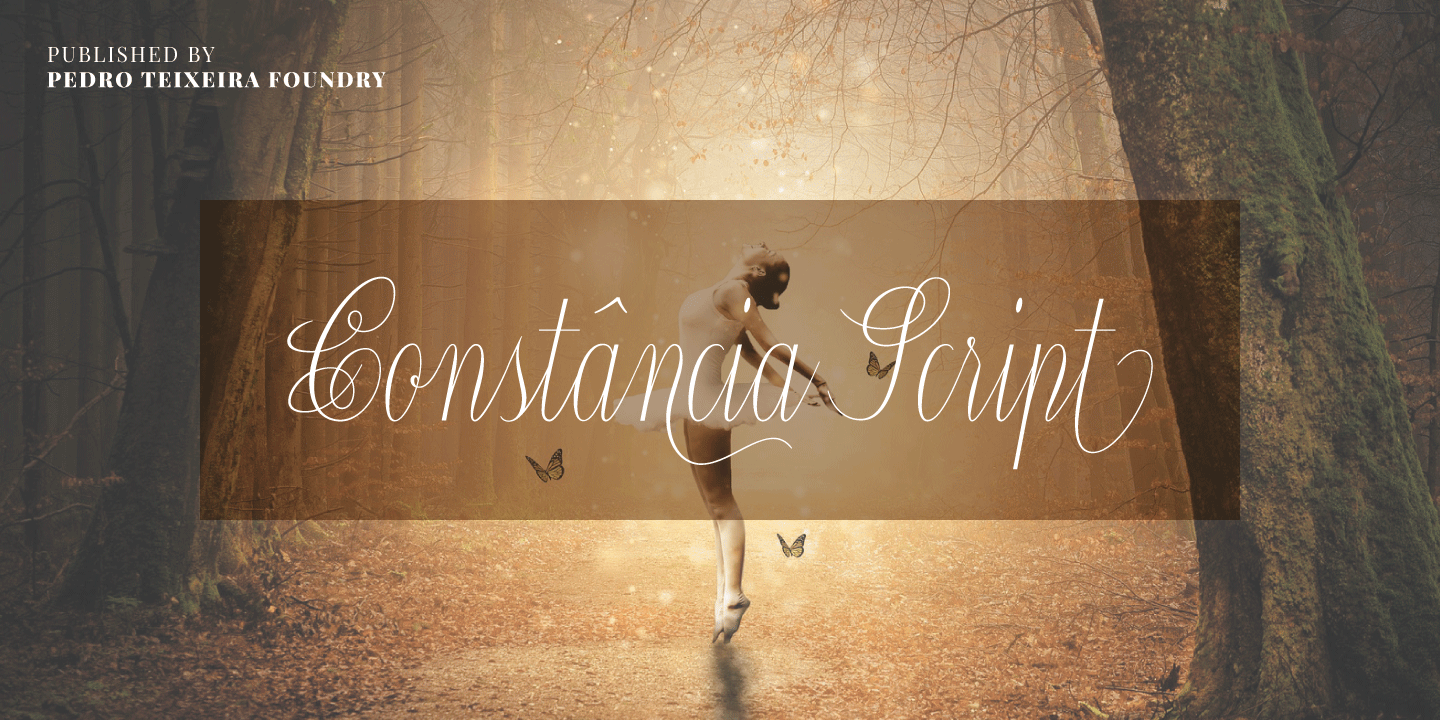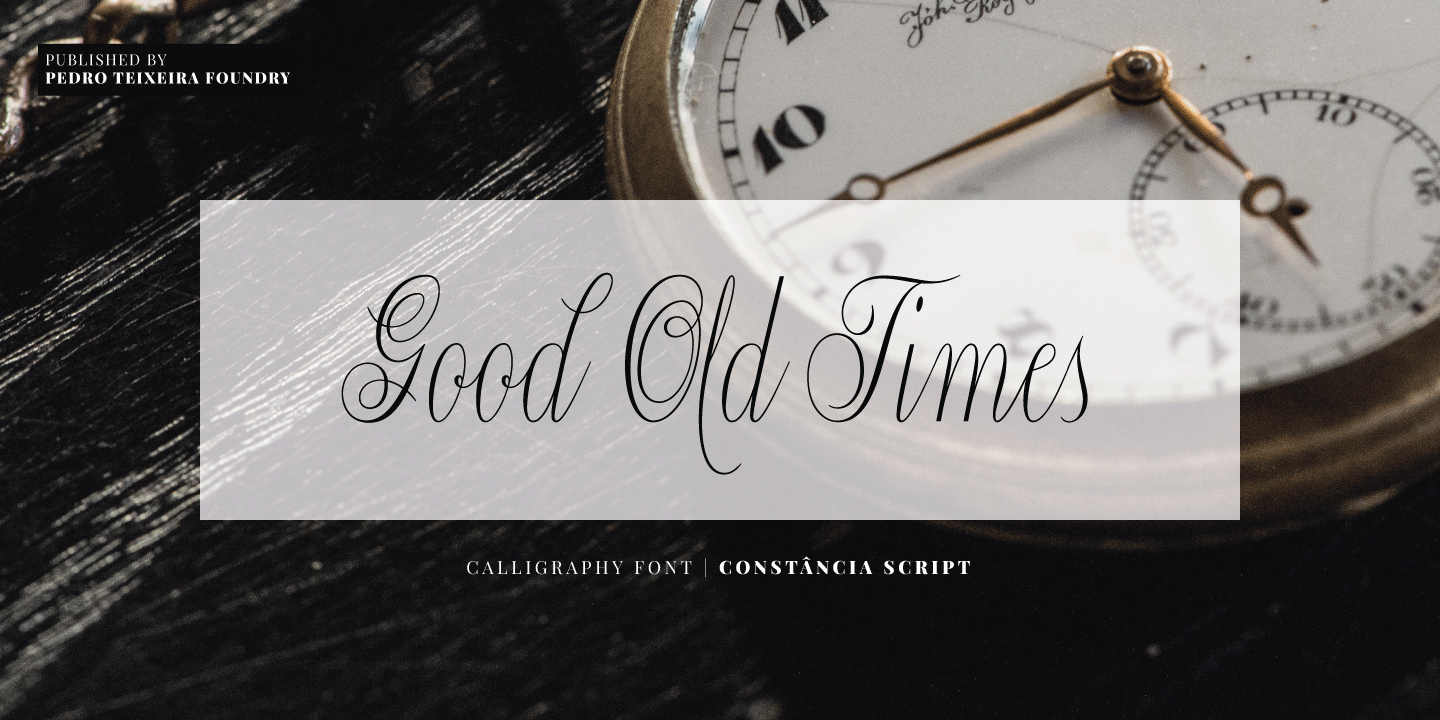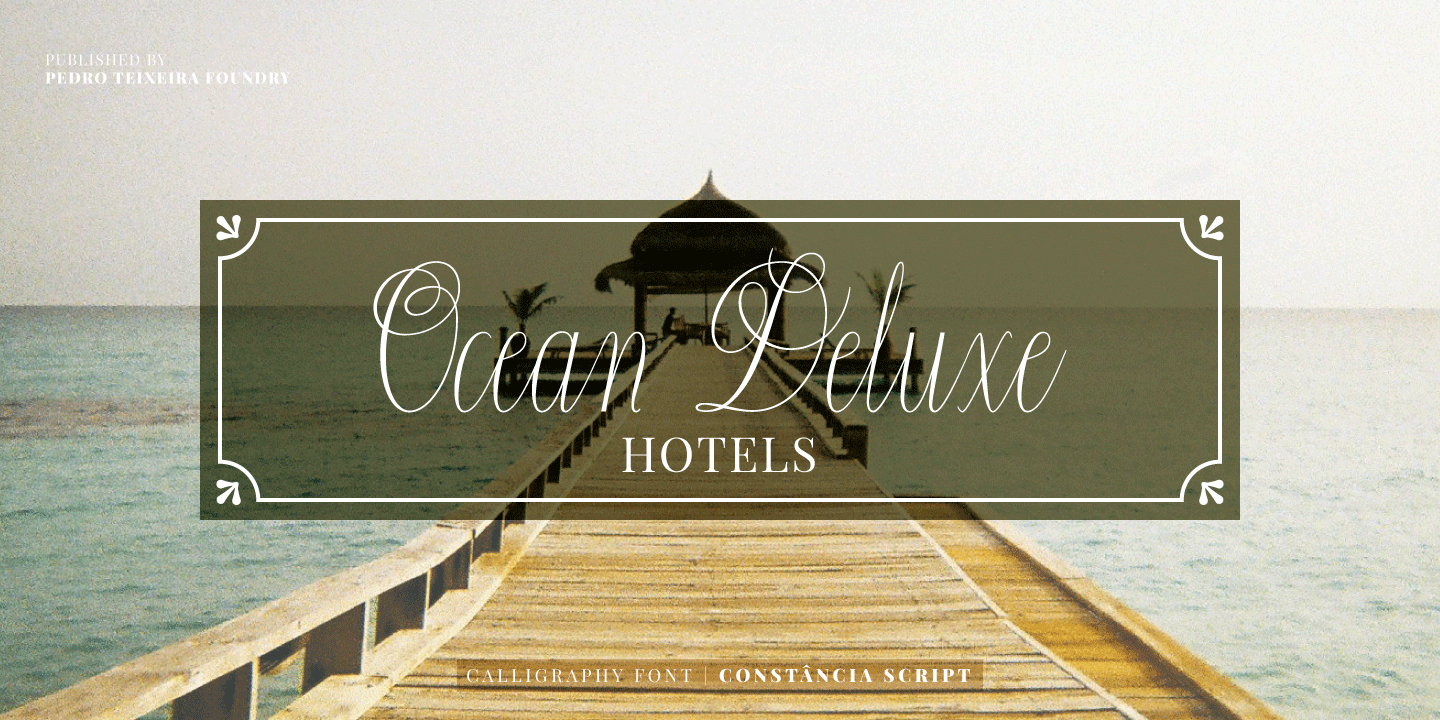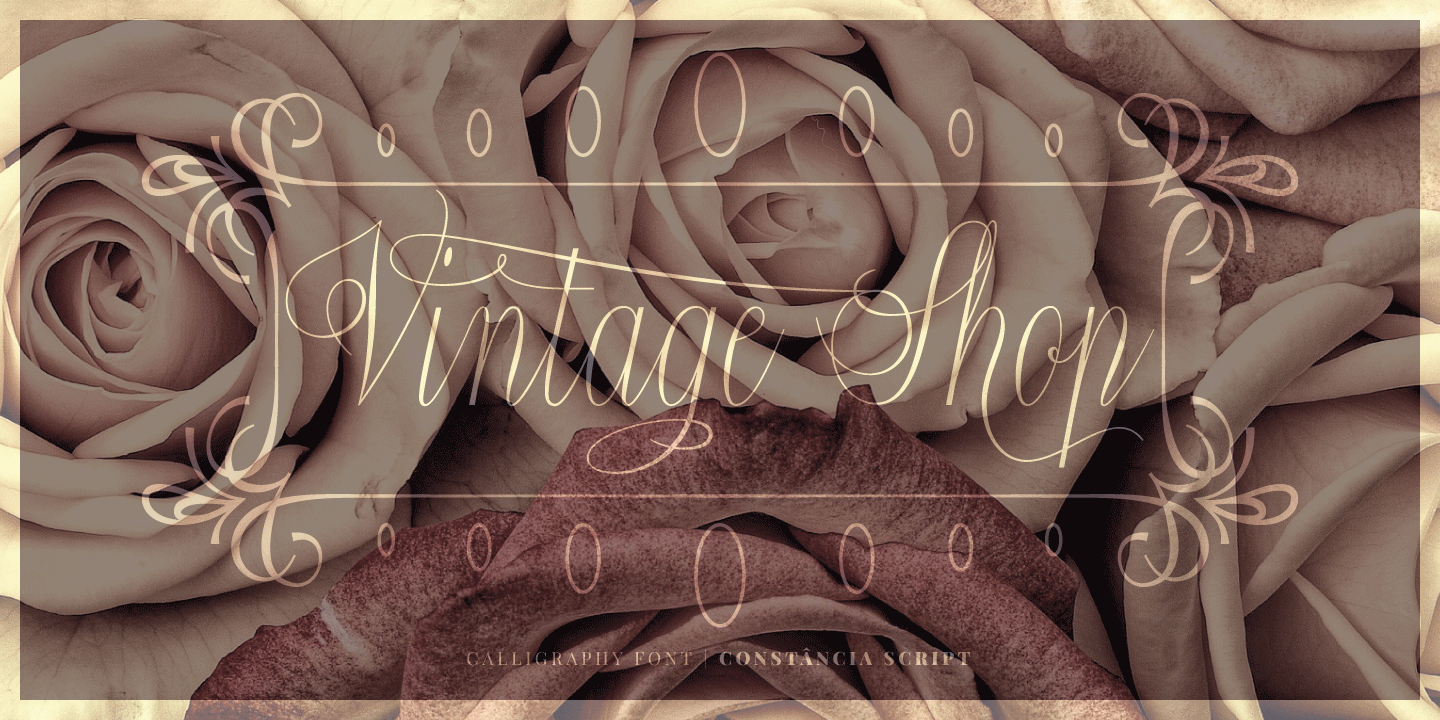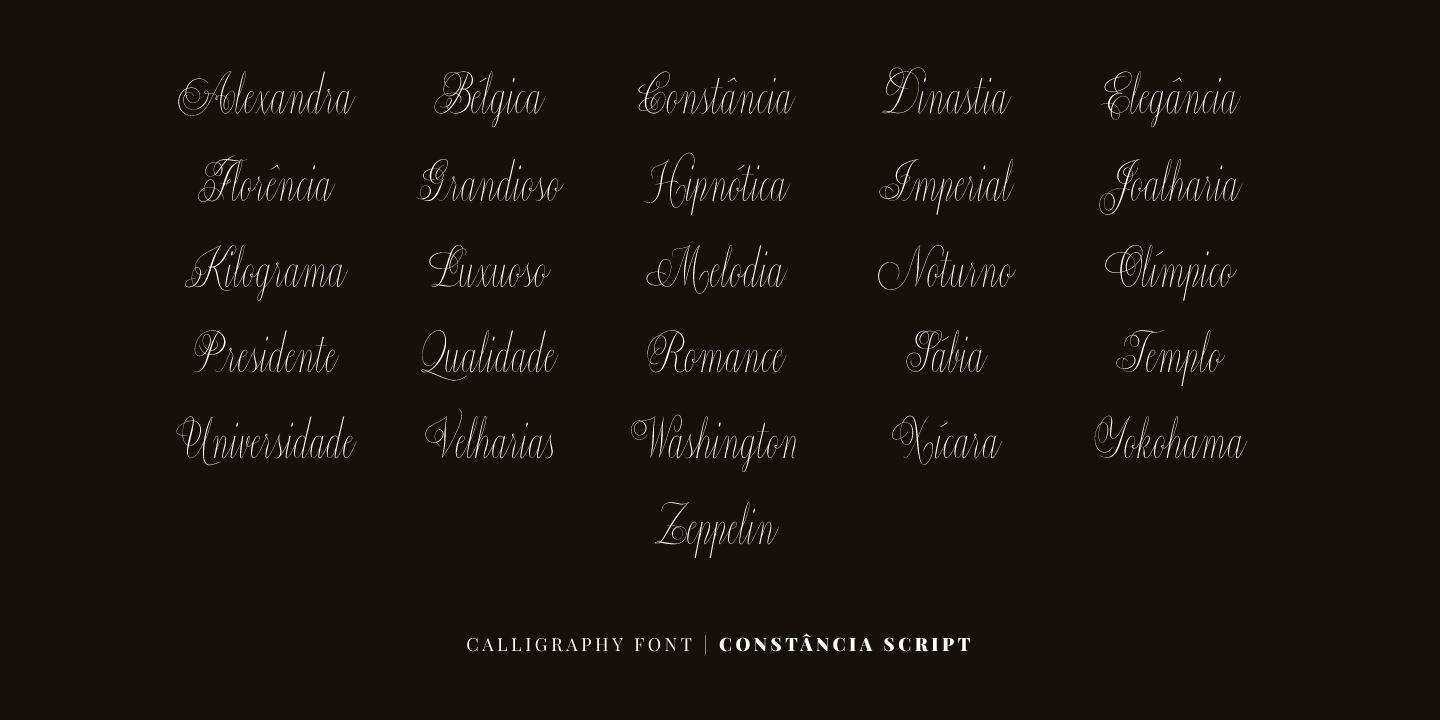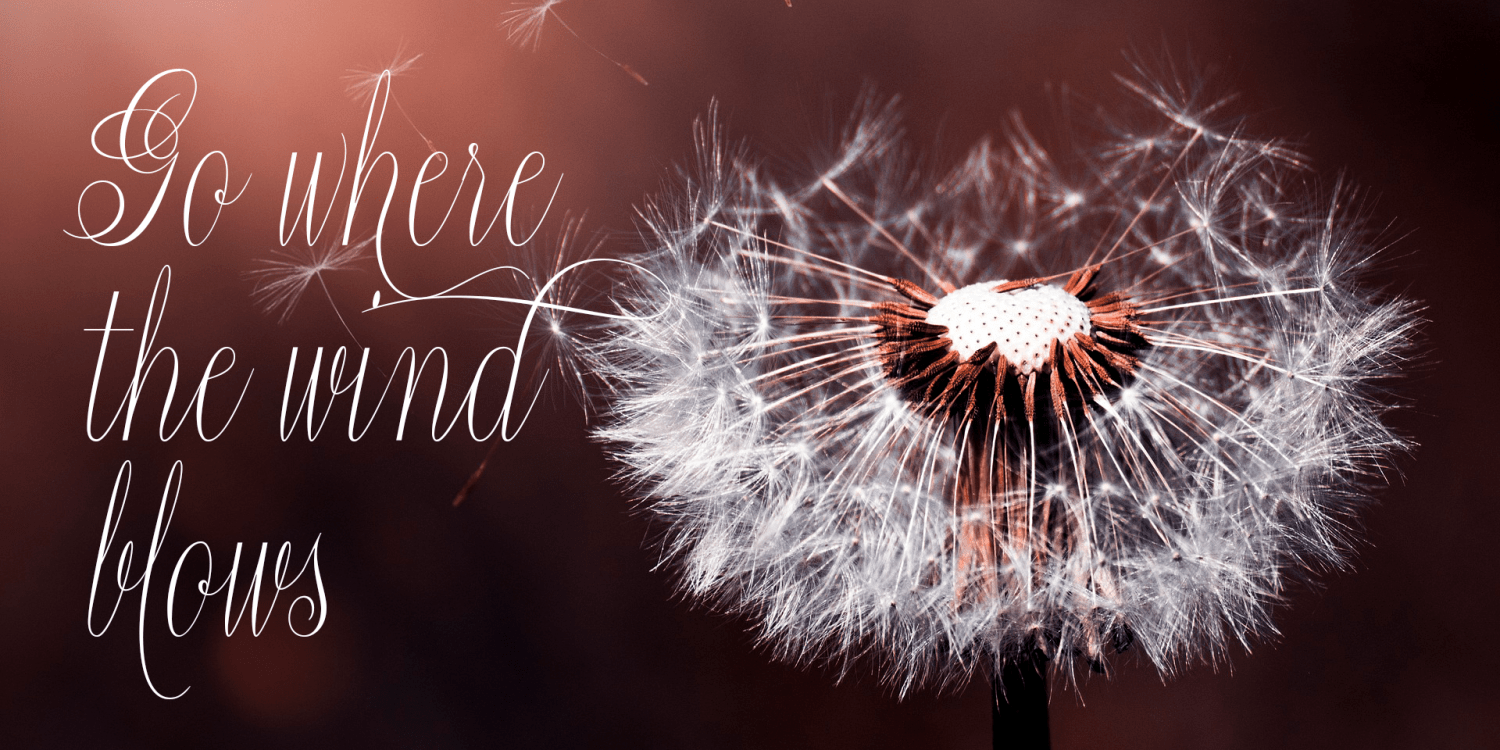
Constancia Script
Font Family by Pedro Teixeira Type Foundry
Constancia Script is a formal calligraphic script with a classic, refined feel. Its flowing cursive structure, thin strokes, and high-contrast details give it an elegant, delicate presence that reads as polished and sophisticated.
This family includes 2 styles, Regular and Bold, from Pedro Teixeira Type Foundry. The contrast between graceful movement and decorative precision makes it a strong choice for invitations, branding, packaging, logos, and other display work that calls for a more formal script voice.
If you want lettering that feels stylish and composed rather than casual, this script brings a graceful, decorative touch while still maintaining a clear sense of structure.